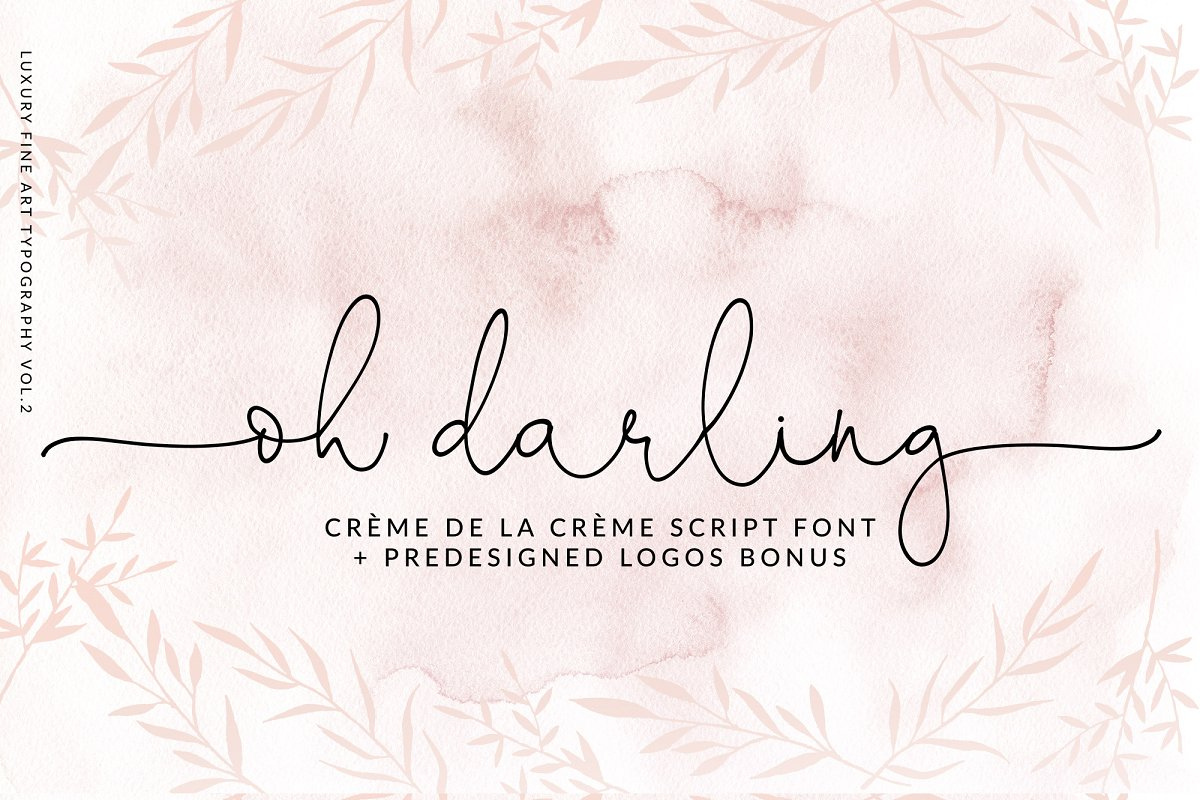
Oh Darling- Ethereal Script Font
Oh Darling Ethereal Script Font is perfect for romantic wedding invitations, ethereal beauty salon branding, dreamy lifestyle blogs, enchanting personal stationery, celestial event planning, whimsical fashion campaigns, magical celebration graphics, and tender romantic communications.
What makes Oh Darling Ethereal Script Font exciting is its ethereal romance that embodies transcendent love and heavenly beauty with dreamy authenticity and celestial charm. The font features flowing letterforms with ethereal curves and romantic character variations that evoke angel wings, starlit dreams, and the tender beauty of heavenly romance and spiritual love. Its distinctive ethereal styling and romantic appeal communicate tenderness, transcendence, and ethereal beauty, making every message feel whispered by angels and touched by the heavenly grace of ethereal romance and celestial love.
The Oh Darling Ethereal Script Font family includes regular weight with uppercase and lowercase letters, numerals, punctuation marks, and special characters. Premium versions often feature stylistic alternates and ethereal flourishes that enhance the romantic, celestial aesthetic perfect for wedding and spiritual applications.
The celestial character of Oh Darling Ethereal Script Font makes it particularly valuable for wedding industry professionals, ethereal beauty brands, and spiritual romance services. Its excellent readability ensures romantic messaging and ethereal communications remain clear while maintaining the distinctive celestial aesthetic that appeals to couples seeking transcendent romantic experiences and heavenly beauty.
Ethereal romance marketers appreciate how Oh Darling Ethereal Script Font effortlessly conveys celestial authenticity and heavenly charm. The font's flowing proportions and ethereal details create beautiful brand materials that establish spiritual connections with audiences who value transcendent love, ethereal beauty, and the flowing grace of celestial romance and heavenly elegance.
The versatile transcendence of this typeface extends to spiritual counseling, ethereal photography, and celestial lifestyle brands where heavenly authenticity enhances romantic credibility and ethereal appeal. Oh Darling Ethereal Script Font Free Download provides creative professionals with an essential tool for developing memorable, transcendence-driven designs that resonate with audiences who embrace ethereal romance, celestial beauty, and the flowing grace of heavenly love in their romantic and spiritual experiences.